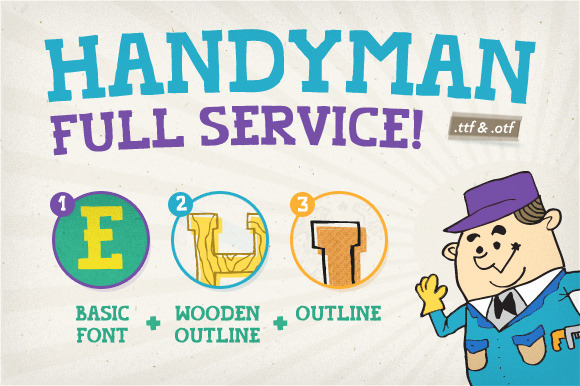
Handyman Font Full Service
Say 'hello' to Handyman and let him make the good job for you! It's handcrafted serif display - a good fit for invites, comics, illustrated stories, headlines and more. It includes font system which you can use to make a 'shift' effect.
Handyman supports German, Spanish and Polish, as well as all languages with these special letters: ĄÁÄĆĘÉÍŁŃÑÓÖŚÜÚŻŹ.